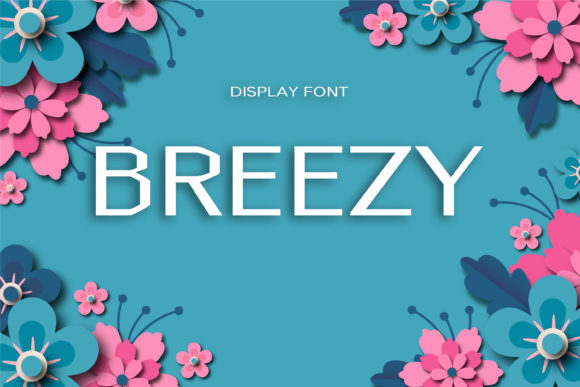
Prepare yourself to be swept away by the charm of Breezy Font, the ultimate display font crafted to bring your designs to life!
Imagine a font that dances across your screen, its simple yet captivating strokes evoking a sense of effortless grace. Breezy Font was born from the desire to create a typeface that embodies the very essence of elegance and readability.
Whether you're a seasoned designer or just starting your creative journey, Breezy Font will become your go-to choice for any project that demands attention. Its clean and neat style seamlessly integrates into a myriad of designs, from captivating headlines to alluring branding materials.
But what truly sets Breezy Font apart is its unmatched versatility. Its natural and unassuming nature allows it to blend effortlessly with any design aesthetic, from classic to contemporary. Whether you're crafting a timeless logo, an eye-catching website, or an unforgettable social media post, Breezy Font will elevate your creations to new heights.